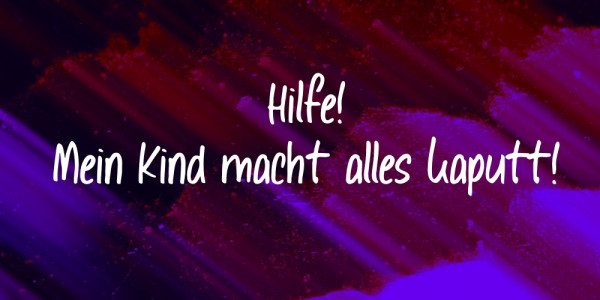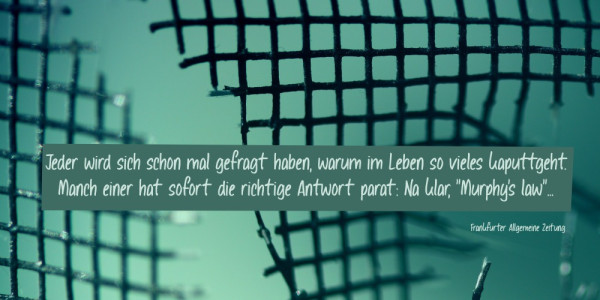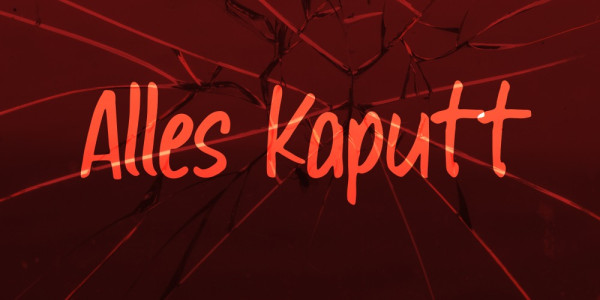
Alles Kaputt Font
Alles Kaputt Font, Ideal for logos, handwritten quotes, product packaging, header, poster, merchandise, social media & greeting cards.
Alles Kaputt means ‘everything’s broken’ in German. It seemed like a good name as I just dropped my mobile phone…